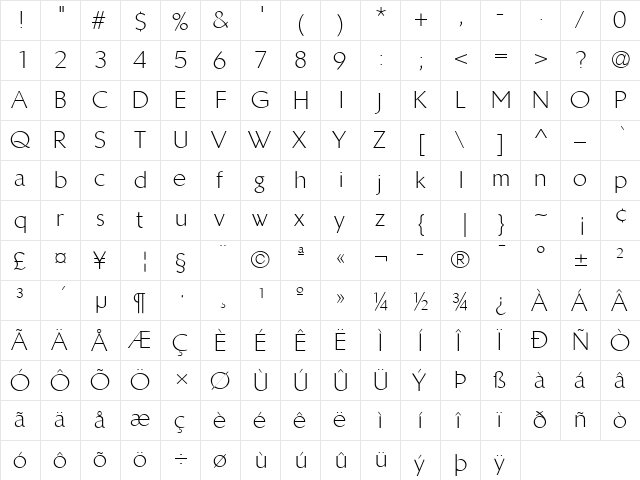
LTBrewery Light Regular Font Preview
LTBrewery Light Regular
Design Context for LTBrewery Light Typeface
LTBrewery Light offers clean, dependable letterforms without strong stylistic allegiance, making it a practical choice for designers who need flexibility. Its slender proportions lend an understated elegance to any composition.